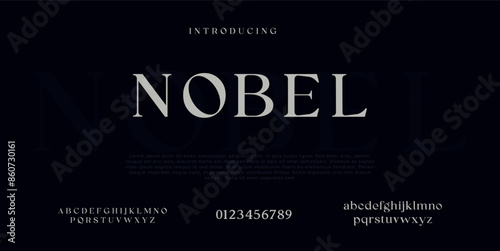
Nobel Modern abstract digital alphabet font. Minimal technology typography, Creative urban sport fashion futuristic font and with numbers. vector illustration